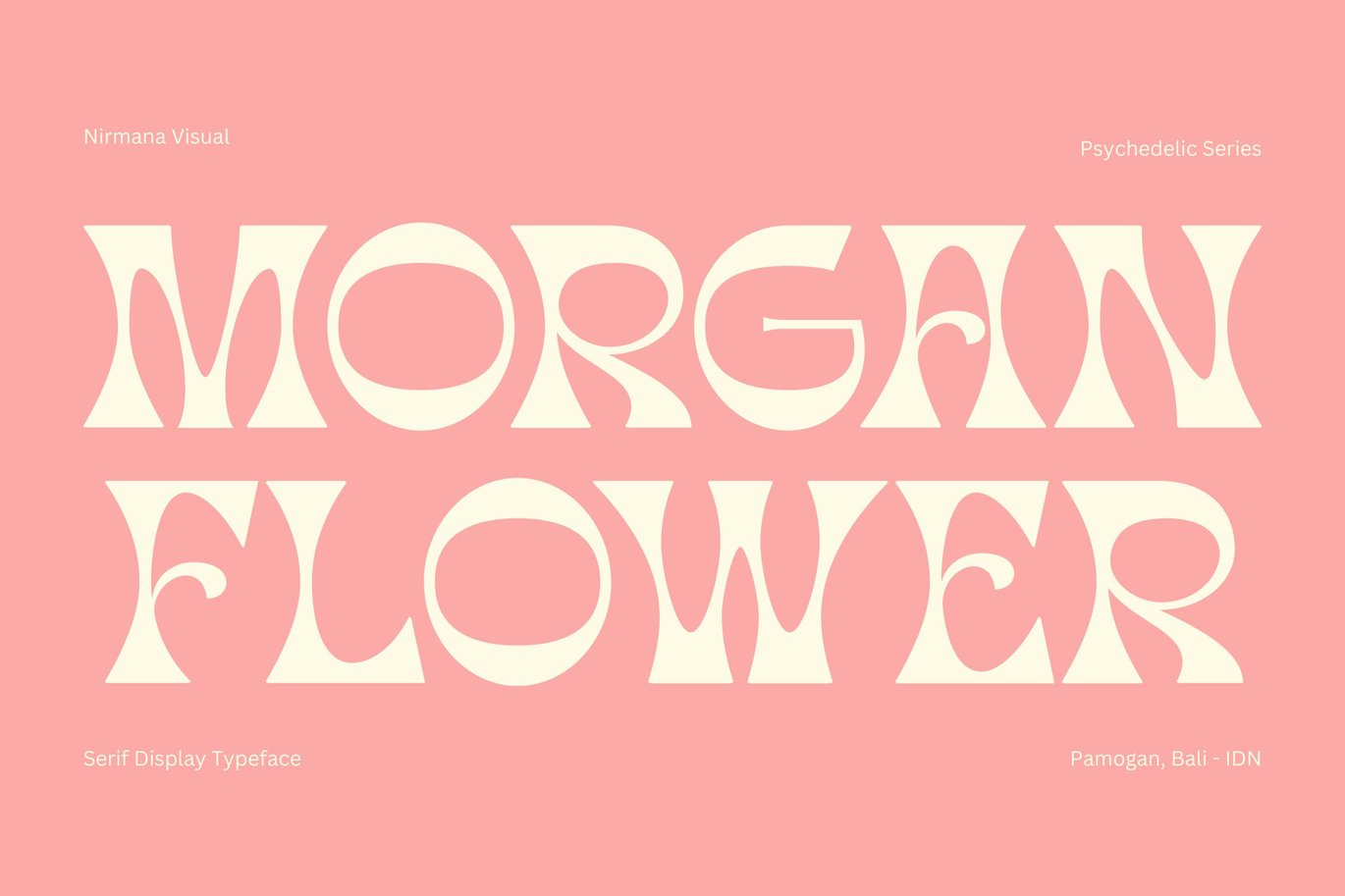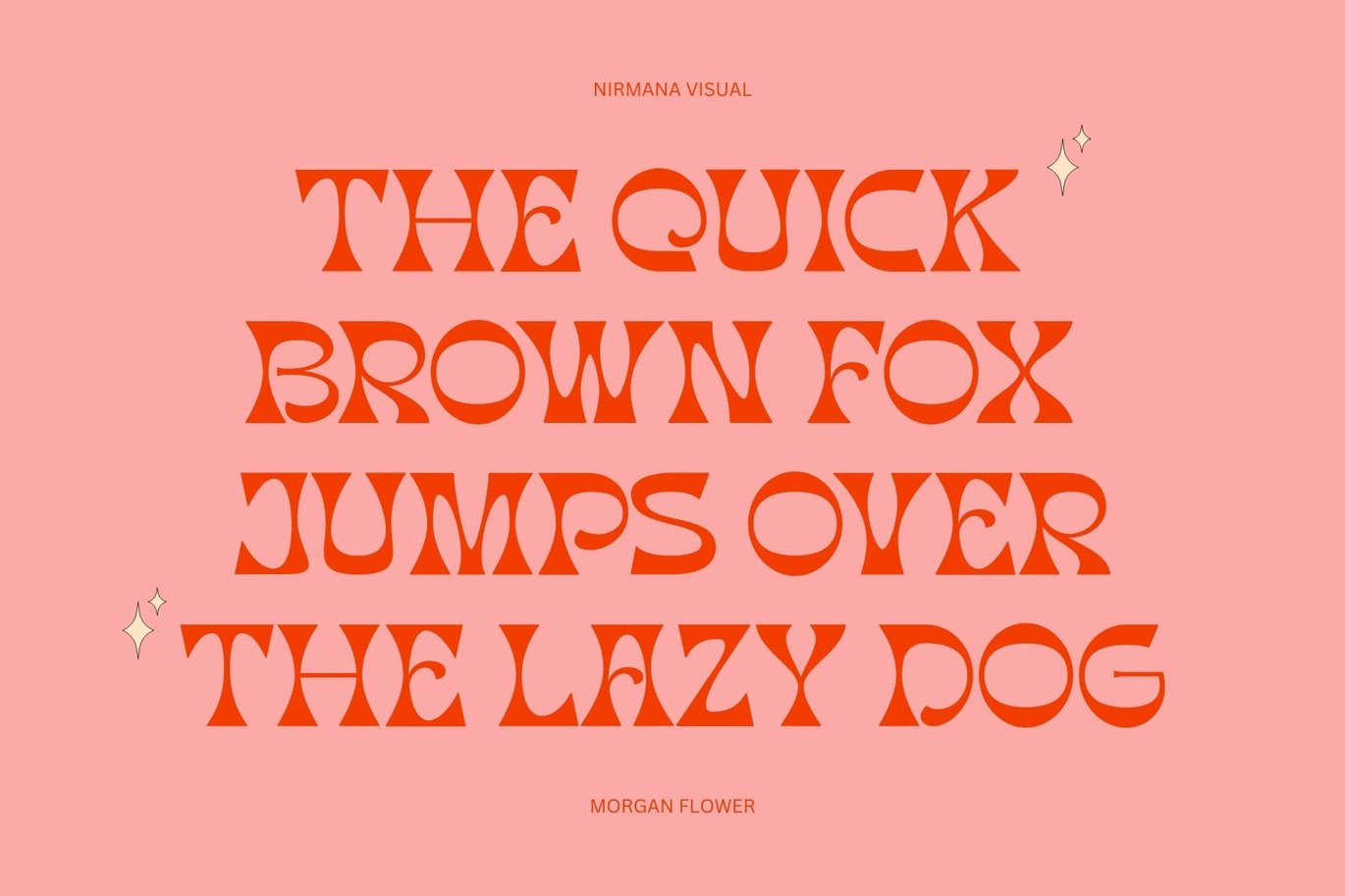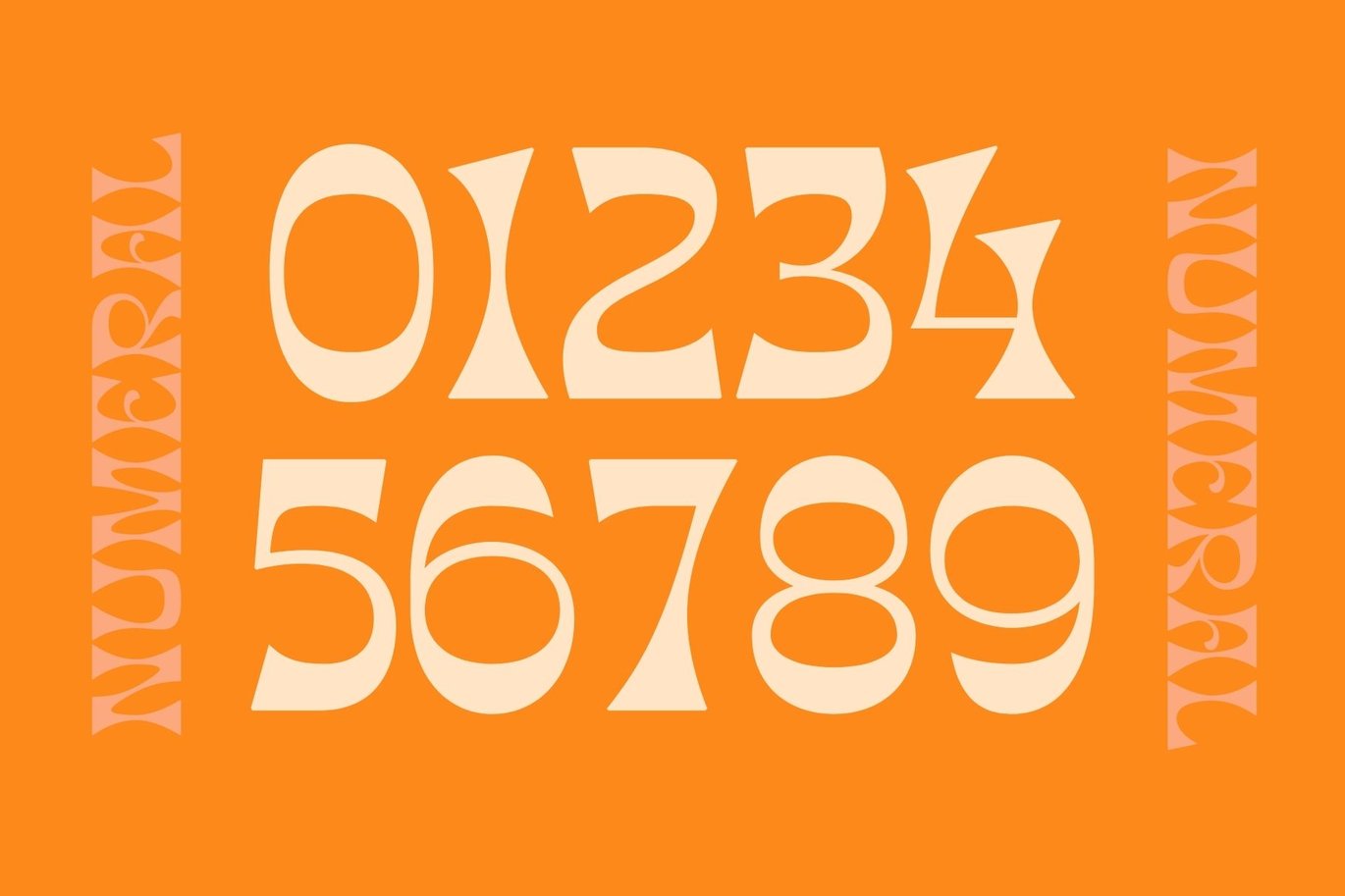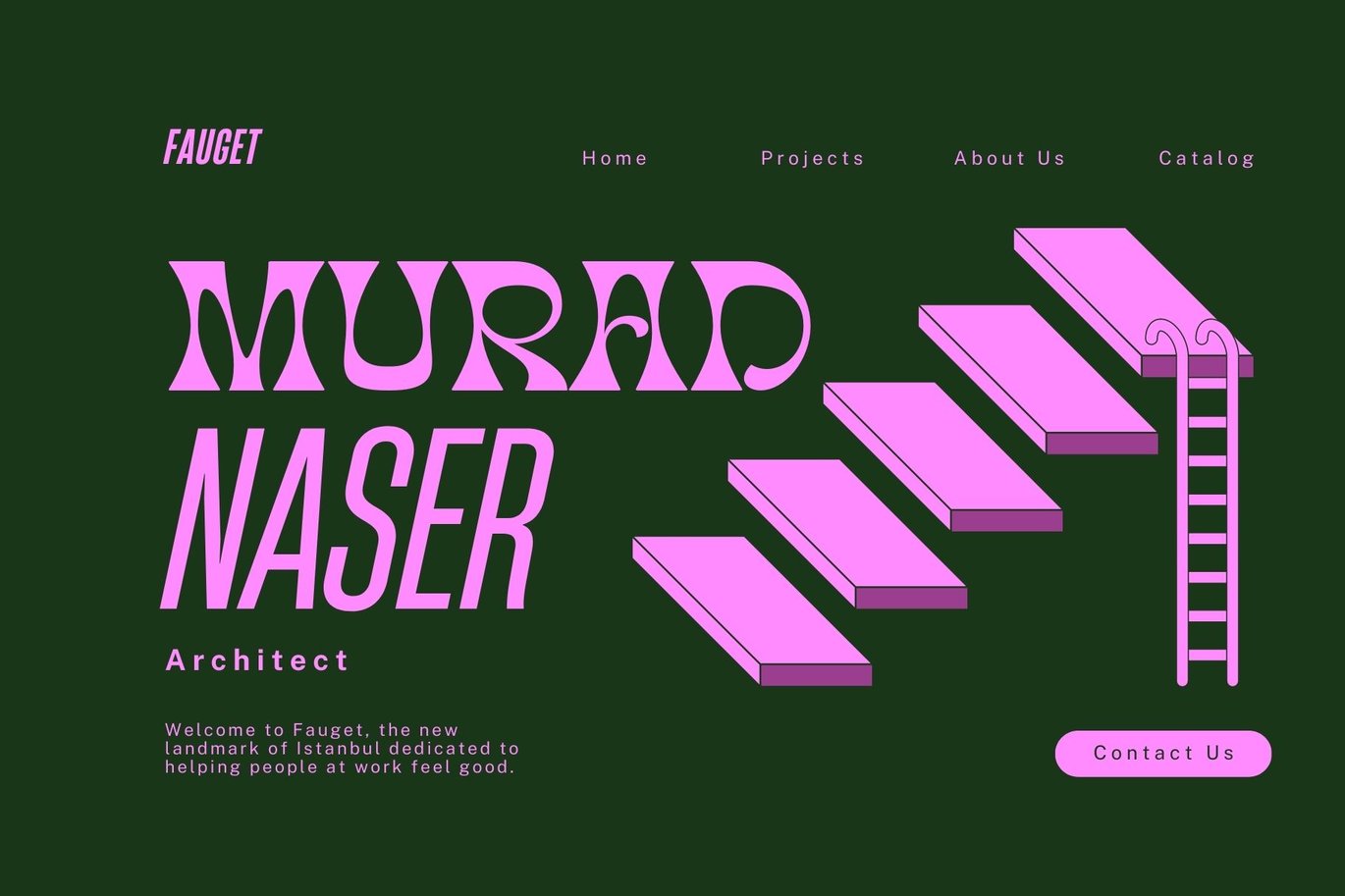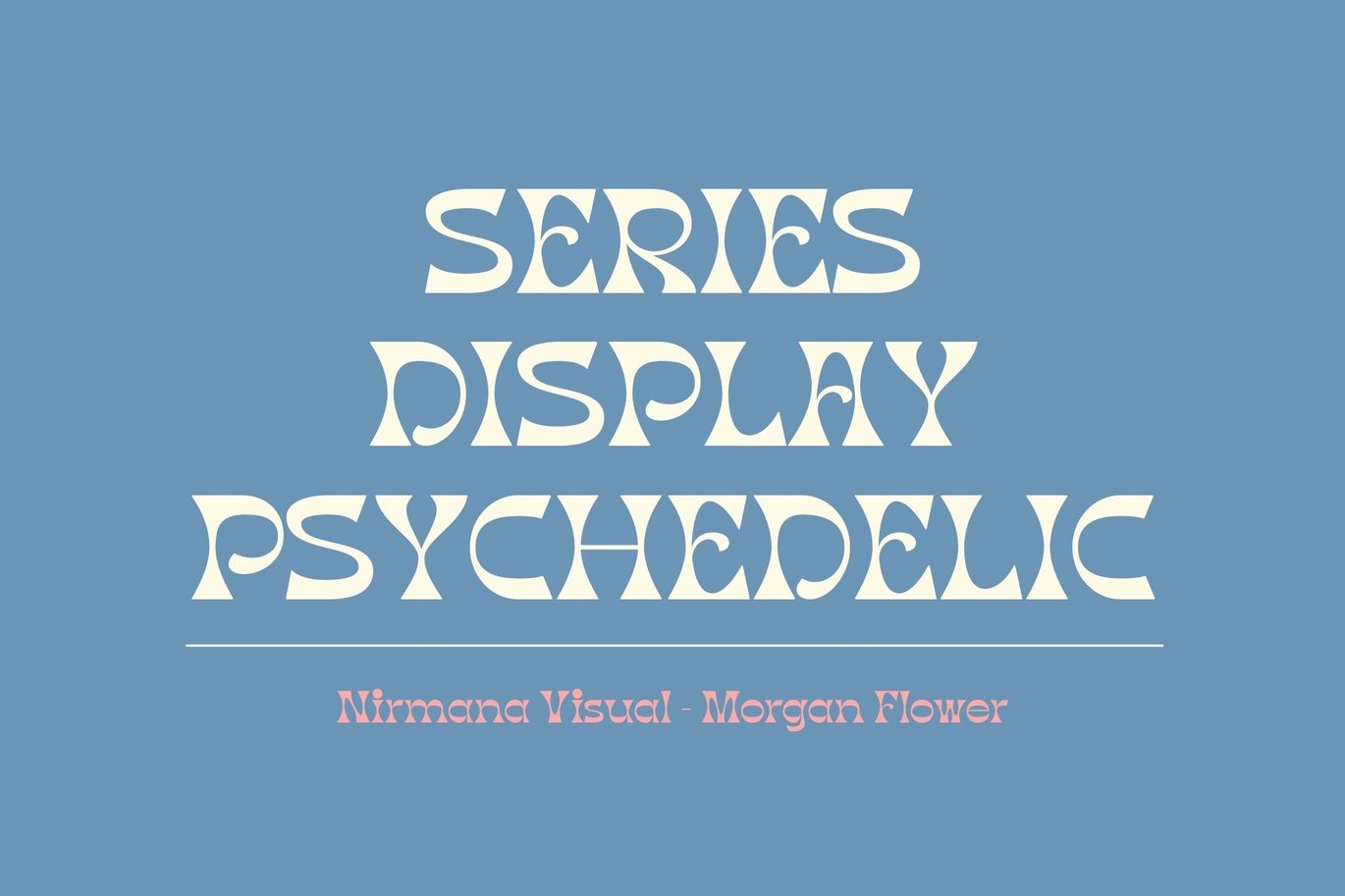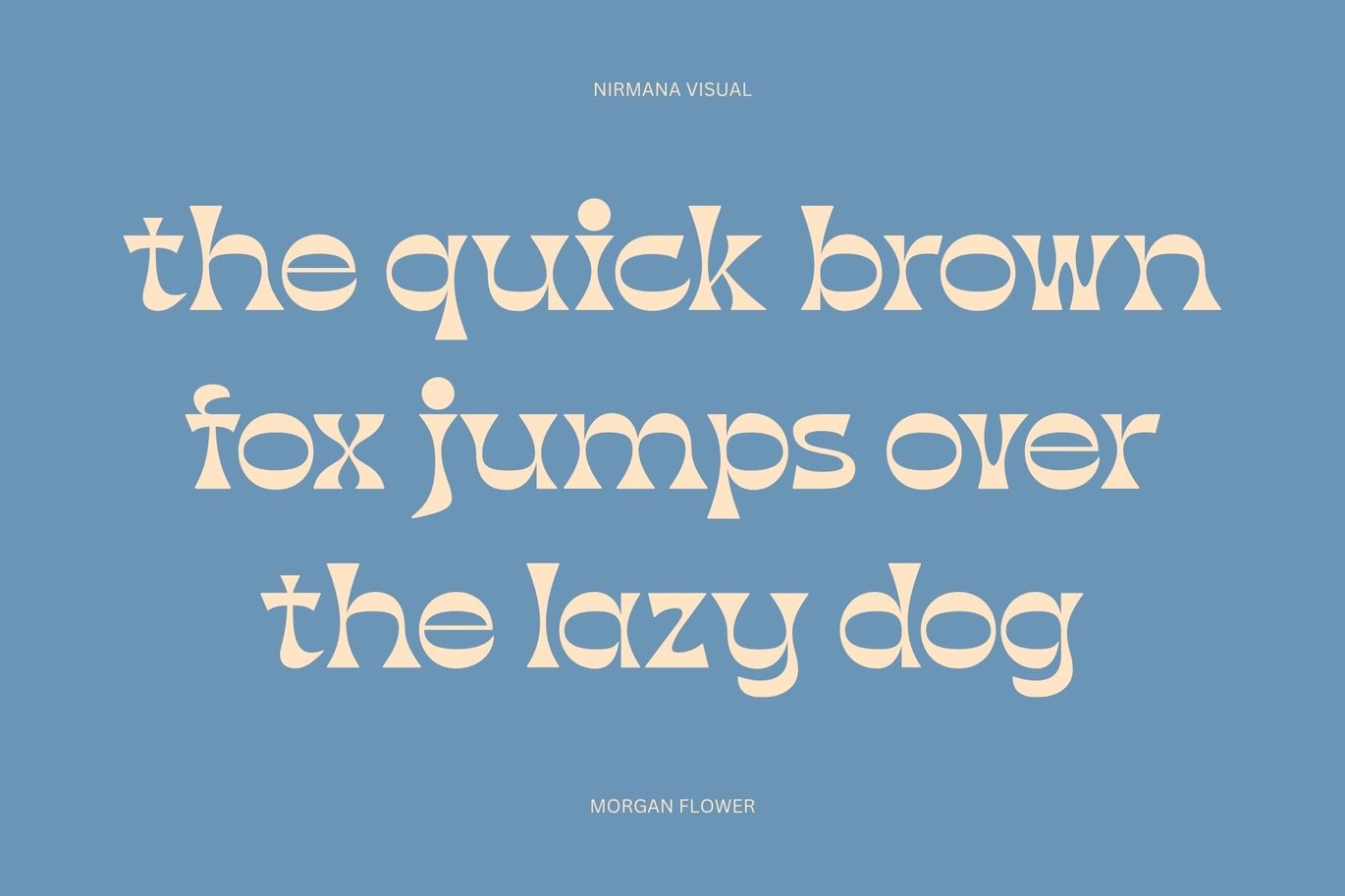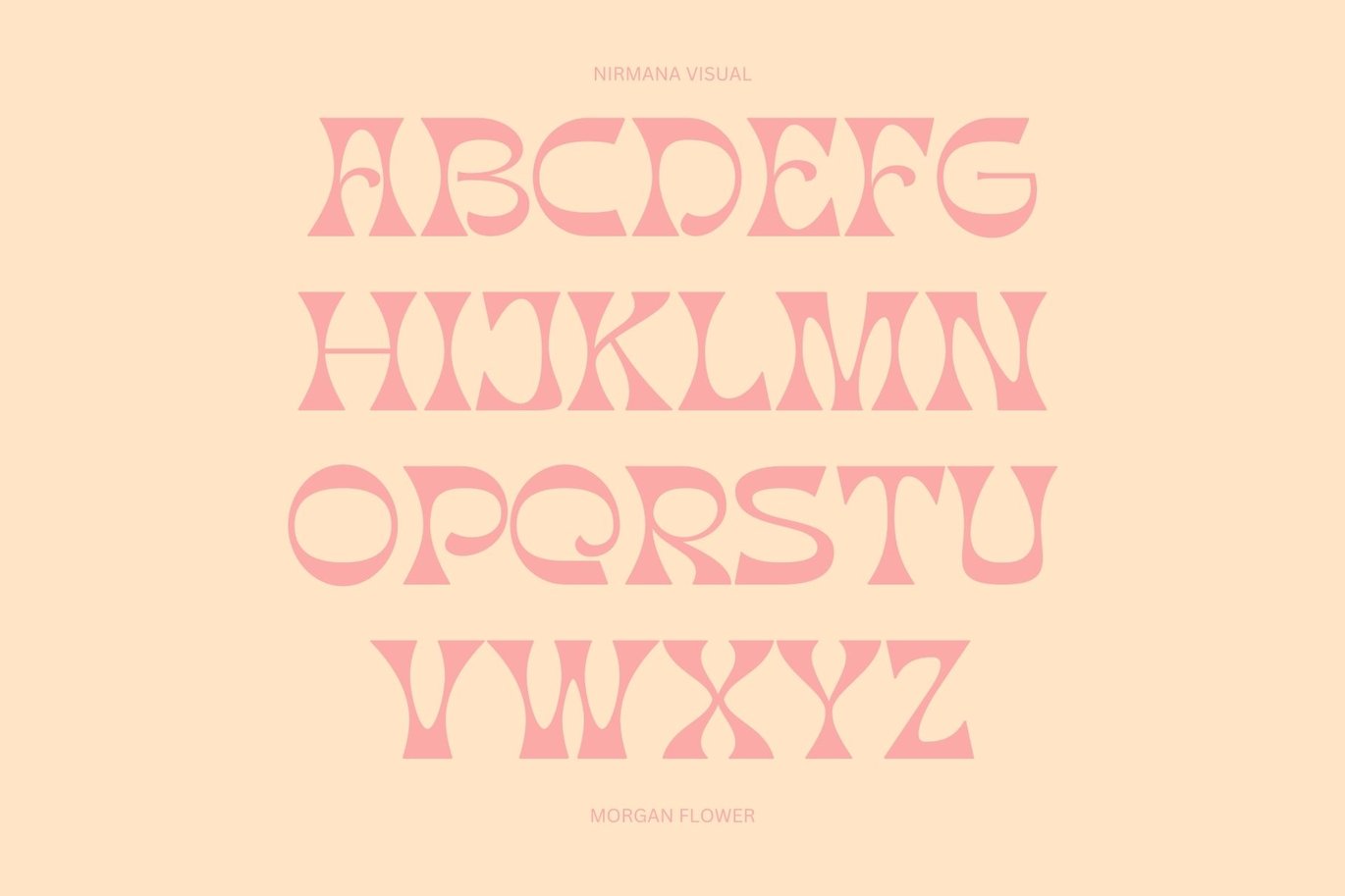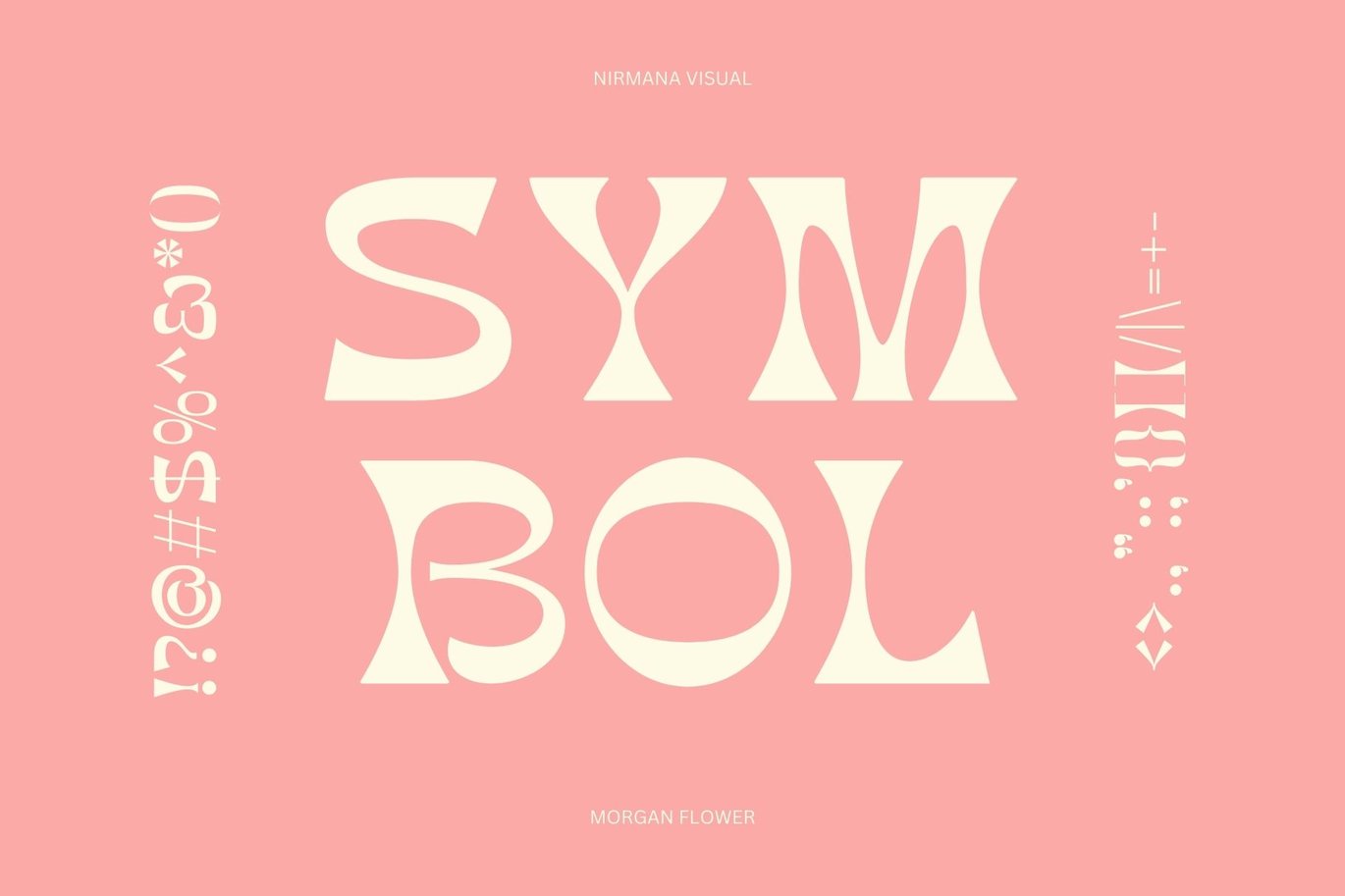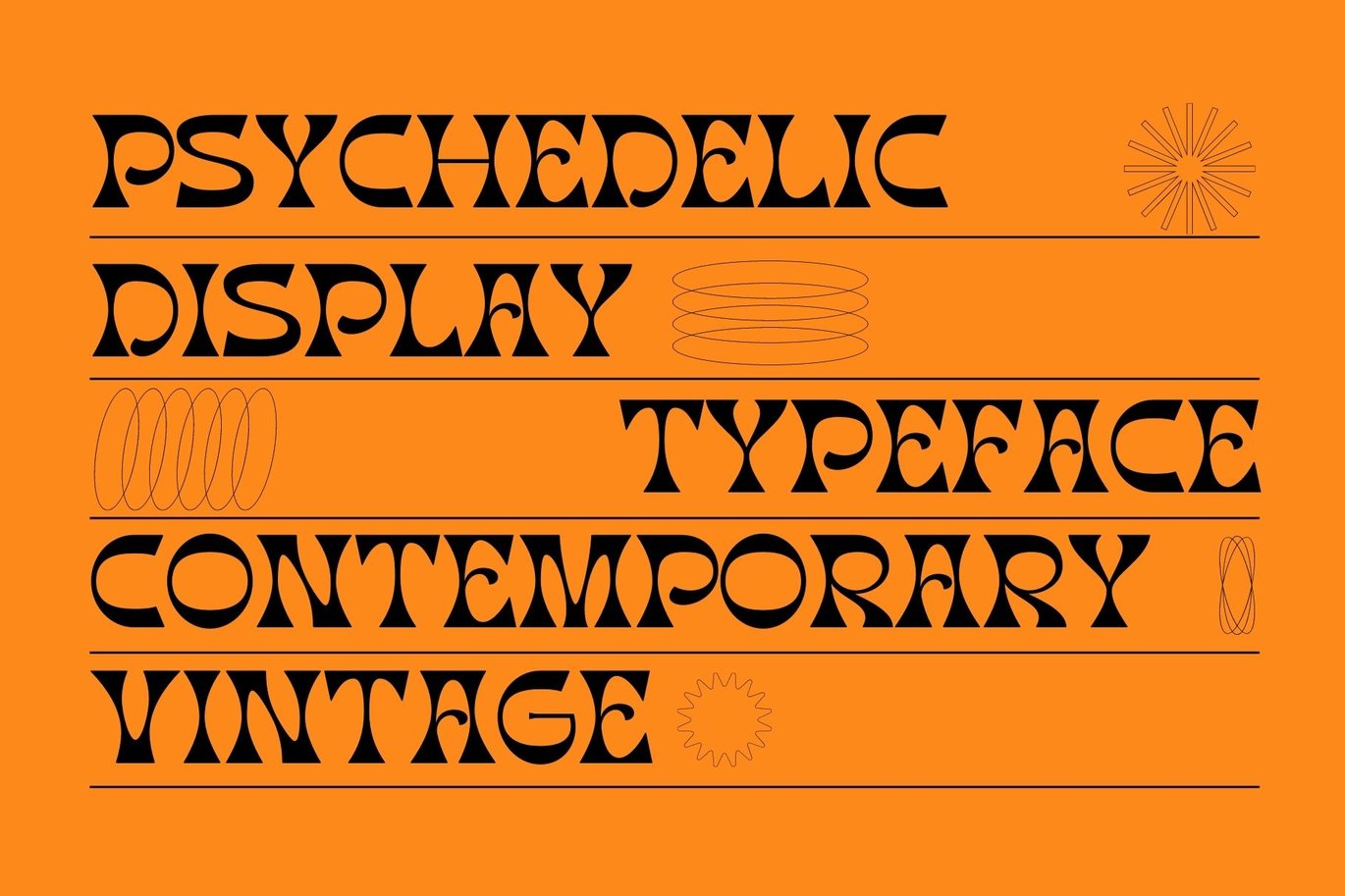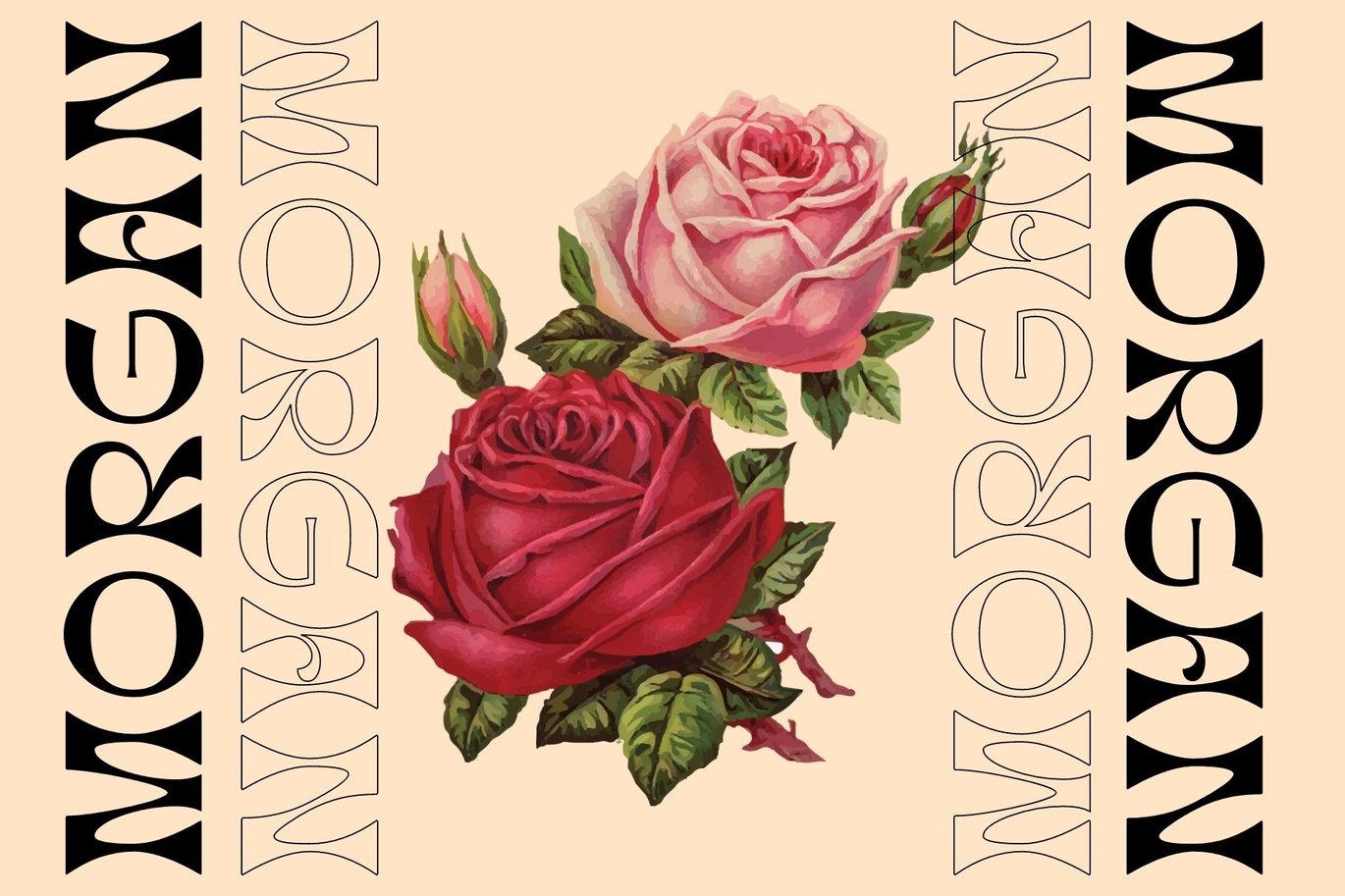
Morgan Flower – Retro Psychedelic Font
Morgan Flower – Psychedelic Serif Display.
Morgan Flower offers beautiful typographic harmony for a diversity of design projects, including logos & branding, social media posts, advertisements & product designs.